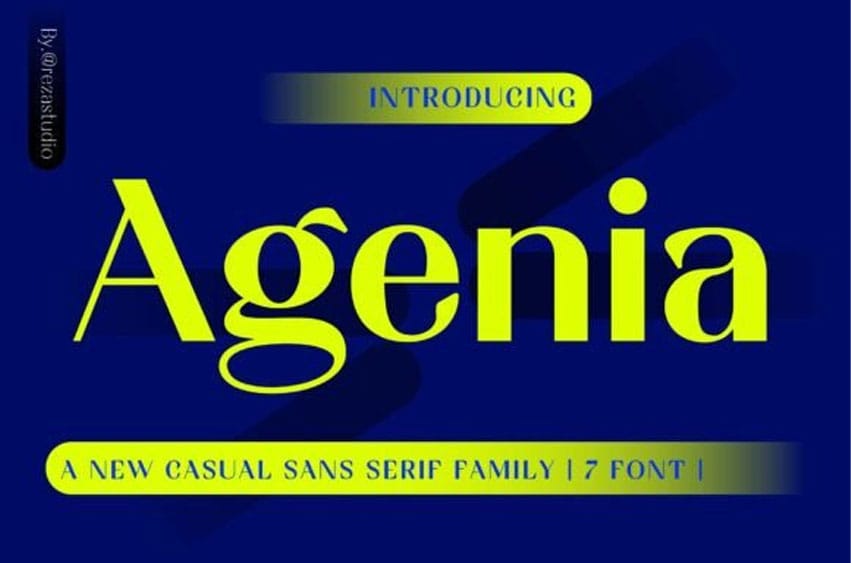
Agenia Font is a sleek and versatile sans-serif font family that combines modern elegance and casual touch. Its clean lines, subtle curves, and contemporary style make it ideal for branding, headlines, web design, and editorial layouts.
Agenia offers flexibility and sophistication with multiple weights and styles, perfectly suited for both professional and creative projects.